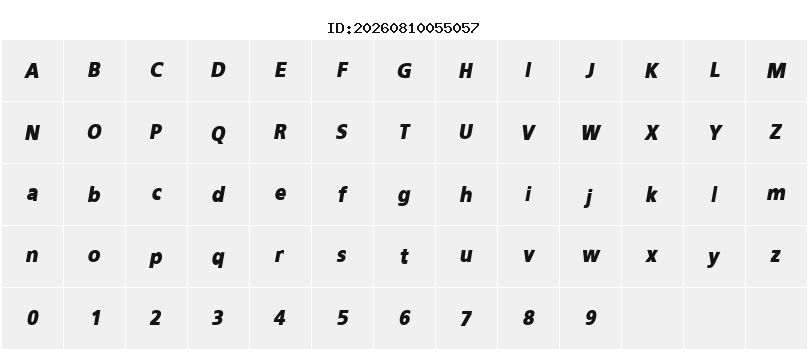
PSL-ImperialExtra Preview
• Font Name: PSL-ImperialExtra
• Font ID: PSL:PSL-ImperialExtra Italic
• Full Font Name: PSL-ImperialExtra Italic
• PostScript Name: PSL-ImperialExtraItalic
About PSL-ImperialExtra.ttf
PSL-ImperialExtra.ttf is a modern, elegant sans-serif font designed for ultimate readability and visual harmony. Perfect for branding, headlines, web design, and print materials.